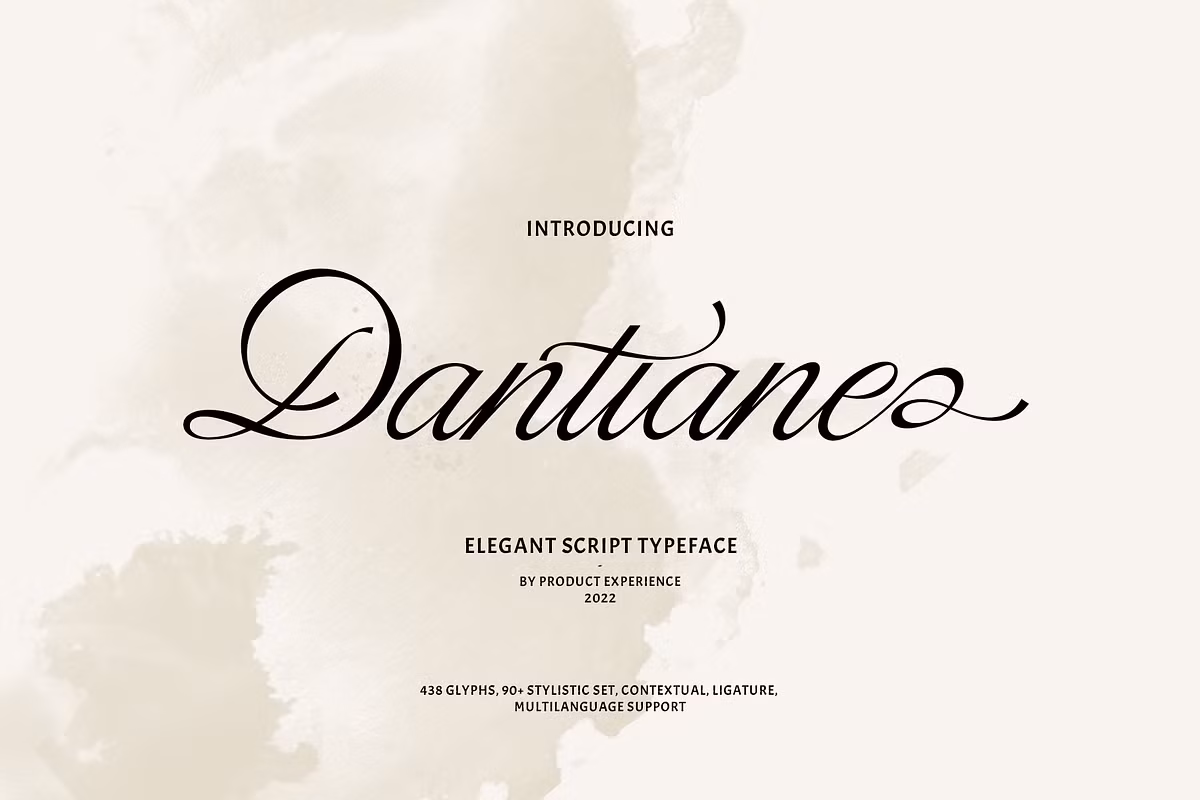
Dantiane - Script Typeface Free Download is a refined and elegant handwritten font that adds a graceful touch to any design. With its smooth curves, stylish ligatures, and natural flow, Dantiane is ideal for wedding stationery, branding, fashion labels, social media graphics, and packaging that needs a romantic or luxurious feel.
This script typeface is crafted to blend sophistication with charm, making your text feel personal yet polished. Whether you're designing a boutique logo or an invitation suite, Dantiane elevates your visuals with timeless beauty.